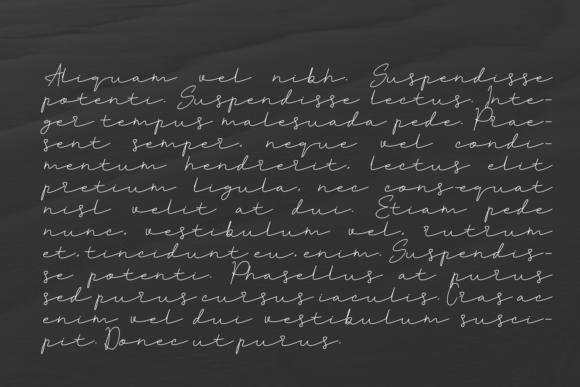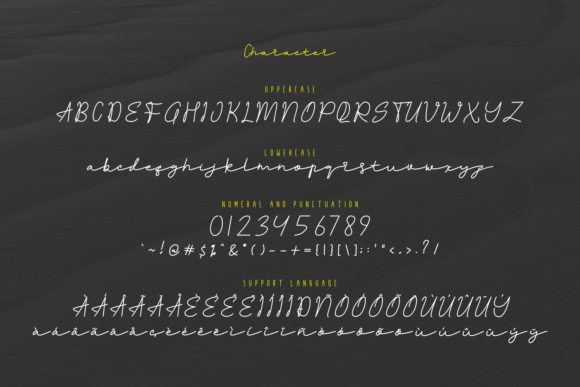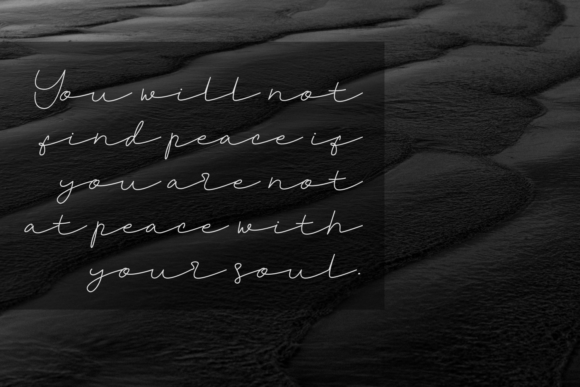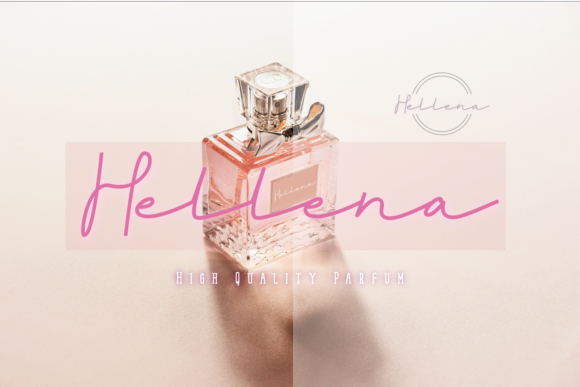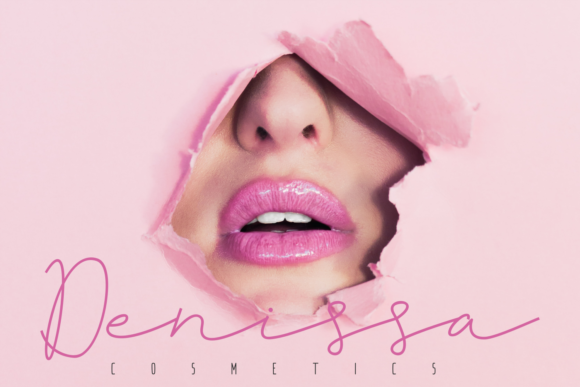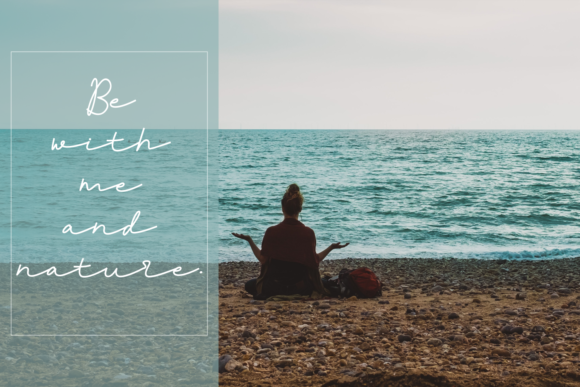
Introduction to Peacelove Font
You’ve spent hours brainstorming the perfect design for your next creative project, only to find yourself stuck on the perfect font. The words swirl together in your mind, and before you know it, the clock strikes midnight, and your deadline is looming. It’s a scenario many designers have found themselves in, but what if you had a secret weapon to elevate your designs and bring your ideas to life?
Enter the Peacelove Font, a stunning handwritten font that has captured the hearts of designers and creatives alike. With its high-quality, elegant script, this font is the ultimate design resource for anyone looking to add a touch of sophistication to their work. Whether you’re a seasoned pro or just starting out, the Peacelove Font is a must-have in your design arsenal.
With its versatility and unique charm, the Peacelove Font is perfect for a wide range of creative projects, from Instagram-worthy graphics to DIY projects that require a personal touch. And the best part? It’s available for free download, allowing you to bring your designs to life without breaking the bank.
Key Features of Peacelove Font
- High-quality design for a creative project, perfect as a design resource for various applications.
- Features a unique, elegant design that is perfect for use in logos, typography, and other creative projects.
Honest Review: Peacelove Font
I recently had the opportunity to work with the Peacelove Font, and I must say it’s been a game-changer for my creative projects. This font is a high-quality design resource that brings a touch of elegance to any project.
- ✨ Unique typography: The Peacelove Font features a beautiful, hand-drawn design that sets it apart from other fonts. It’s perfect for creating a personal touch in your designs.
- ✨ Versatile: This font is suitable for a wide range of creative projects, from logos to posters and even website designs.
While the Peacelove Font is an excellent choice, there are a few limitations to keep in mind:
- ⚠️ Limited language support: The font only supports a limited range of languages, which may be a drawback for designers working on international projects.
- ⚠️ Not suitable for small text: Due to its unique design, the Peacelove Font may not be the best choice for small text sizes.
Overall, I’m thoroughly impressed with the Peacelove Font. Its high-quality design and versatility make it an excellent addition to any designer’s toolkit. While it may have some limitations, it’s definitely worth considering for your next creative project.
Tips for Getting the Most Out of Peacelove Font
To get the most out of Peacelove Font, use it in conjunction with other high quality design elements to create a visually appealing design. Experiment with different font sizes, colors, and styles to find the perfect combination for your project.
Peacelove Font is commonly used for creative projects such as blog posts, social media graphics, and business cards. Its high quality and transparent background make it an excellent choice for any design project that requires a unique and eye-catching font.